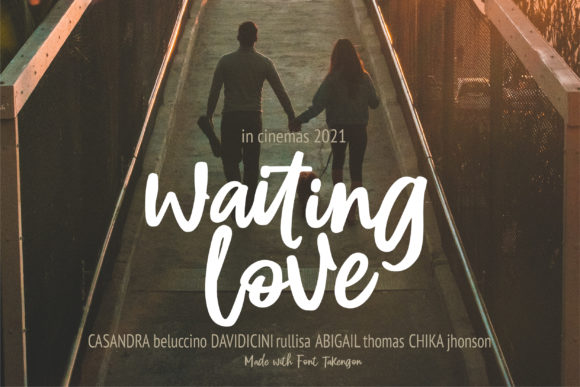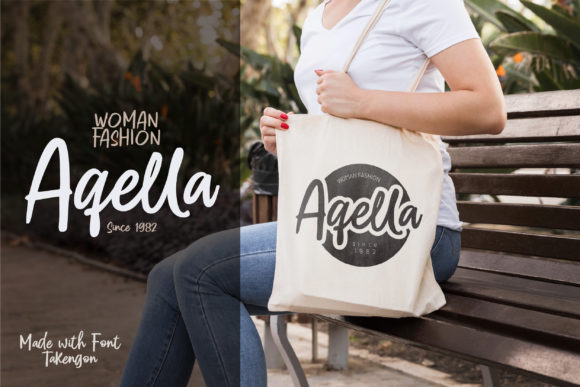
Takegon Font
db-ku.com - Script & Handwritten -- Takegon is a fun, urban styled handwritten font. Irrespective of the topic, this font will be an incredibly asset to your fonts’ library, as it has the potential to elevate any creation.